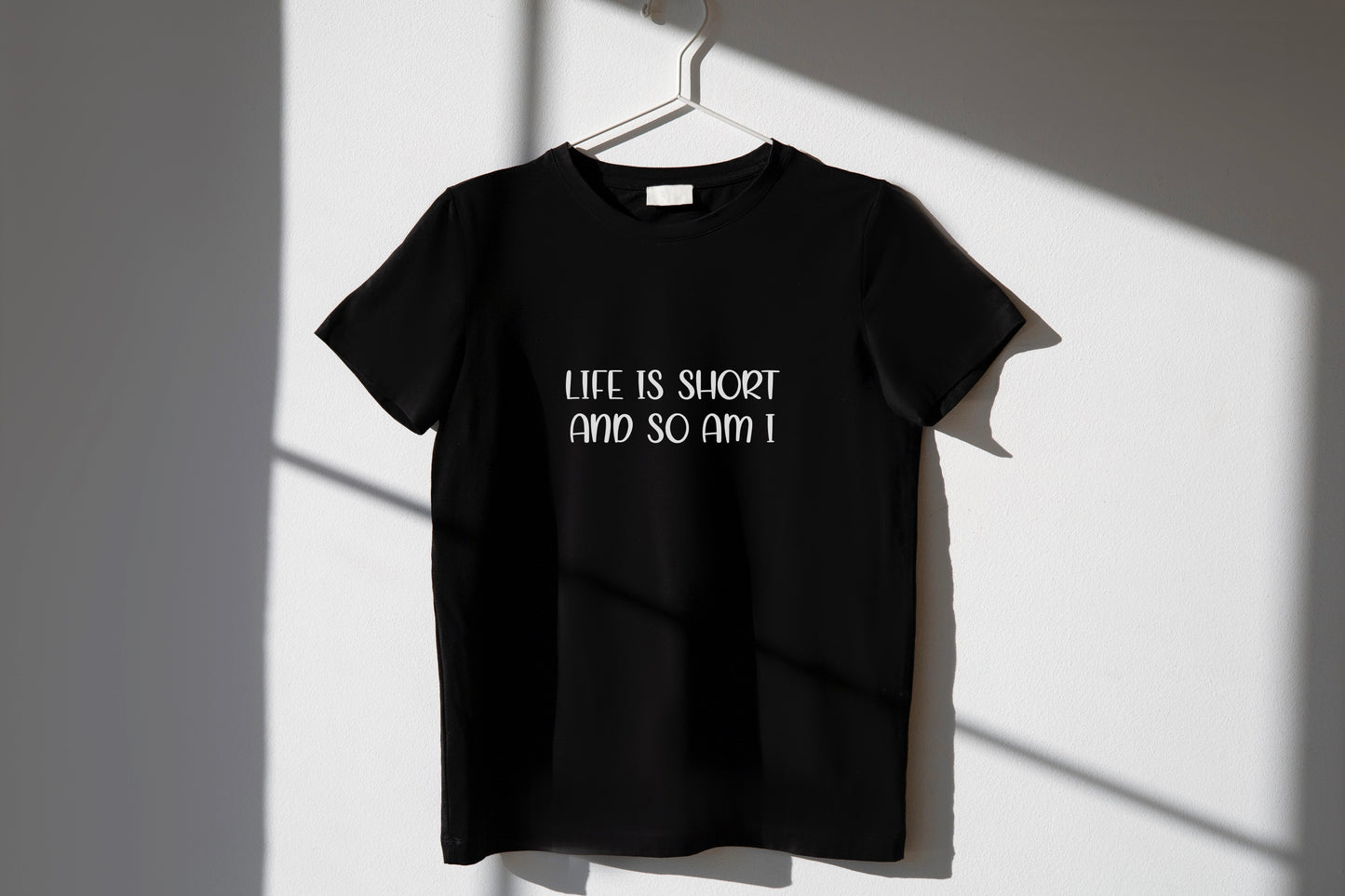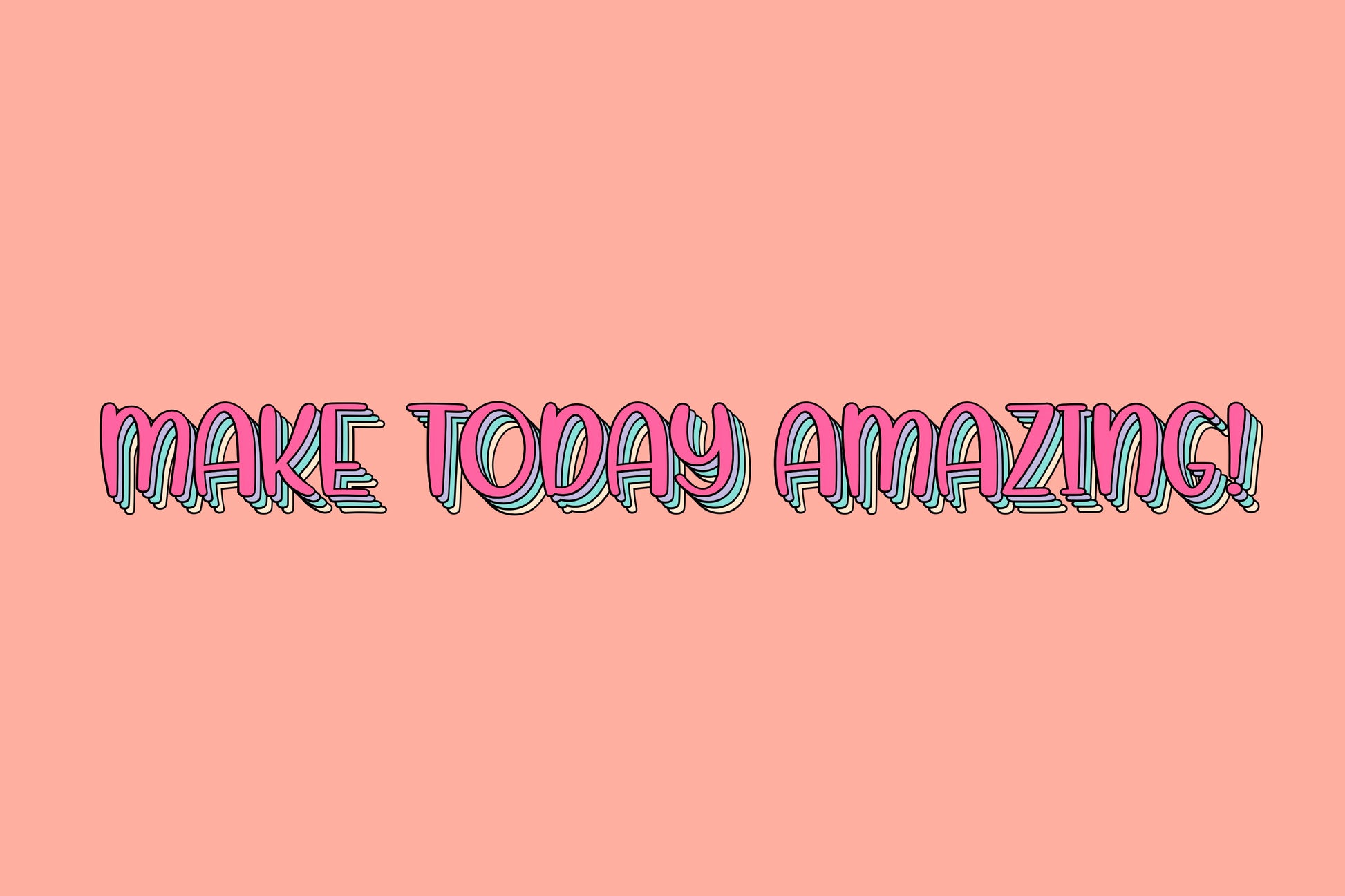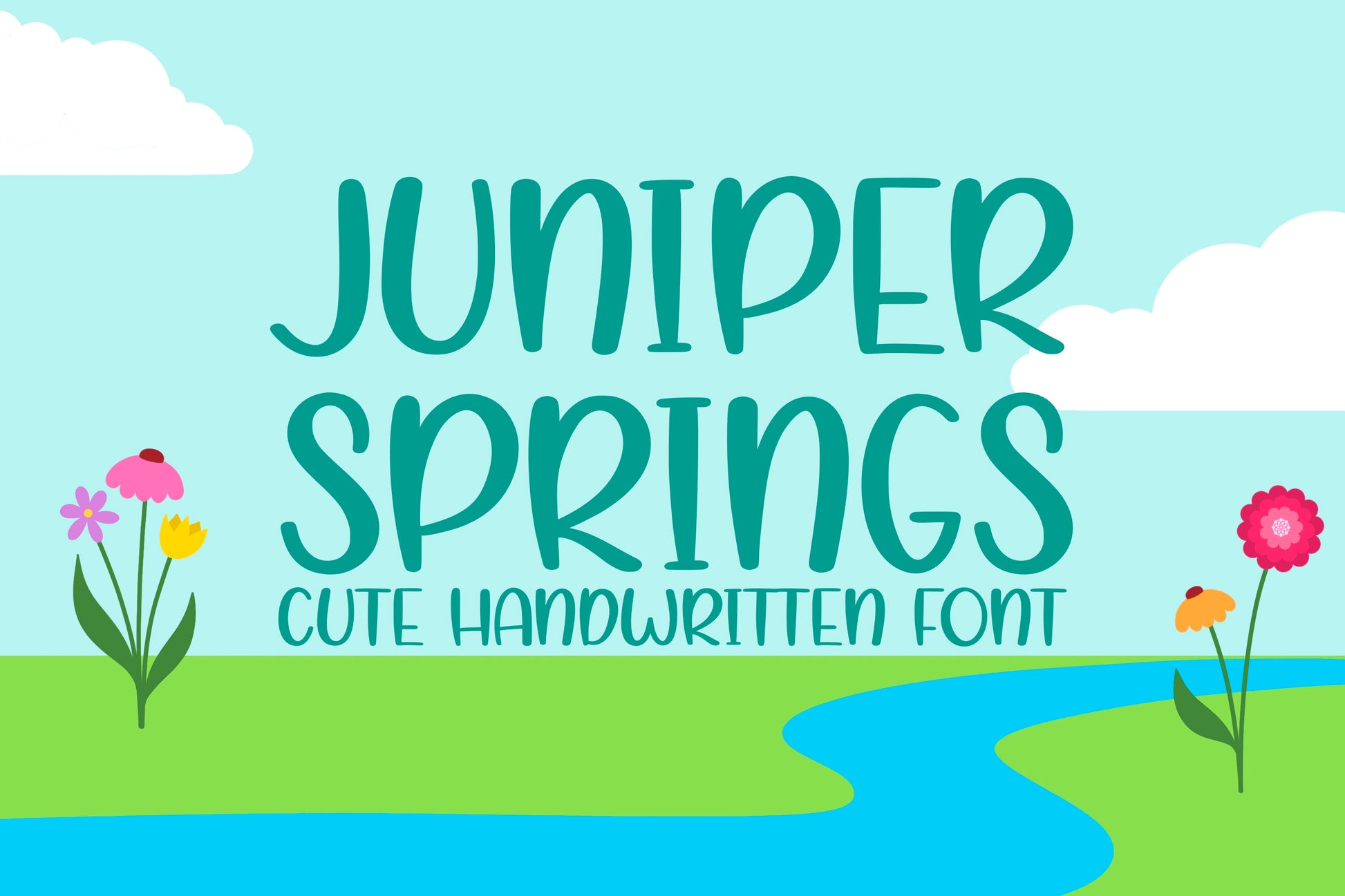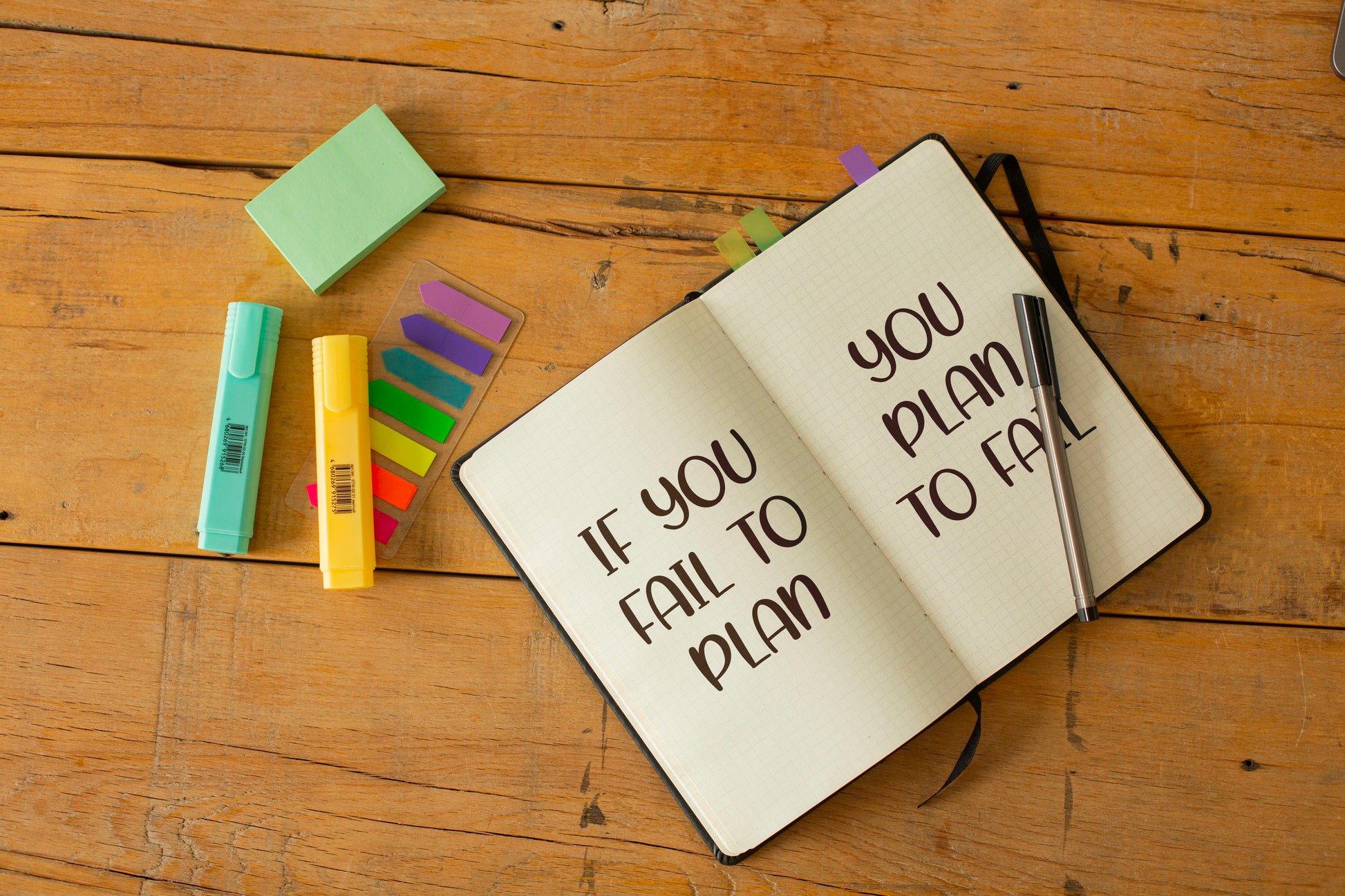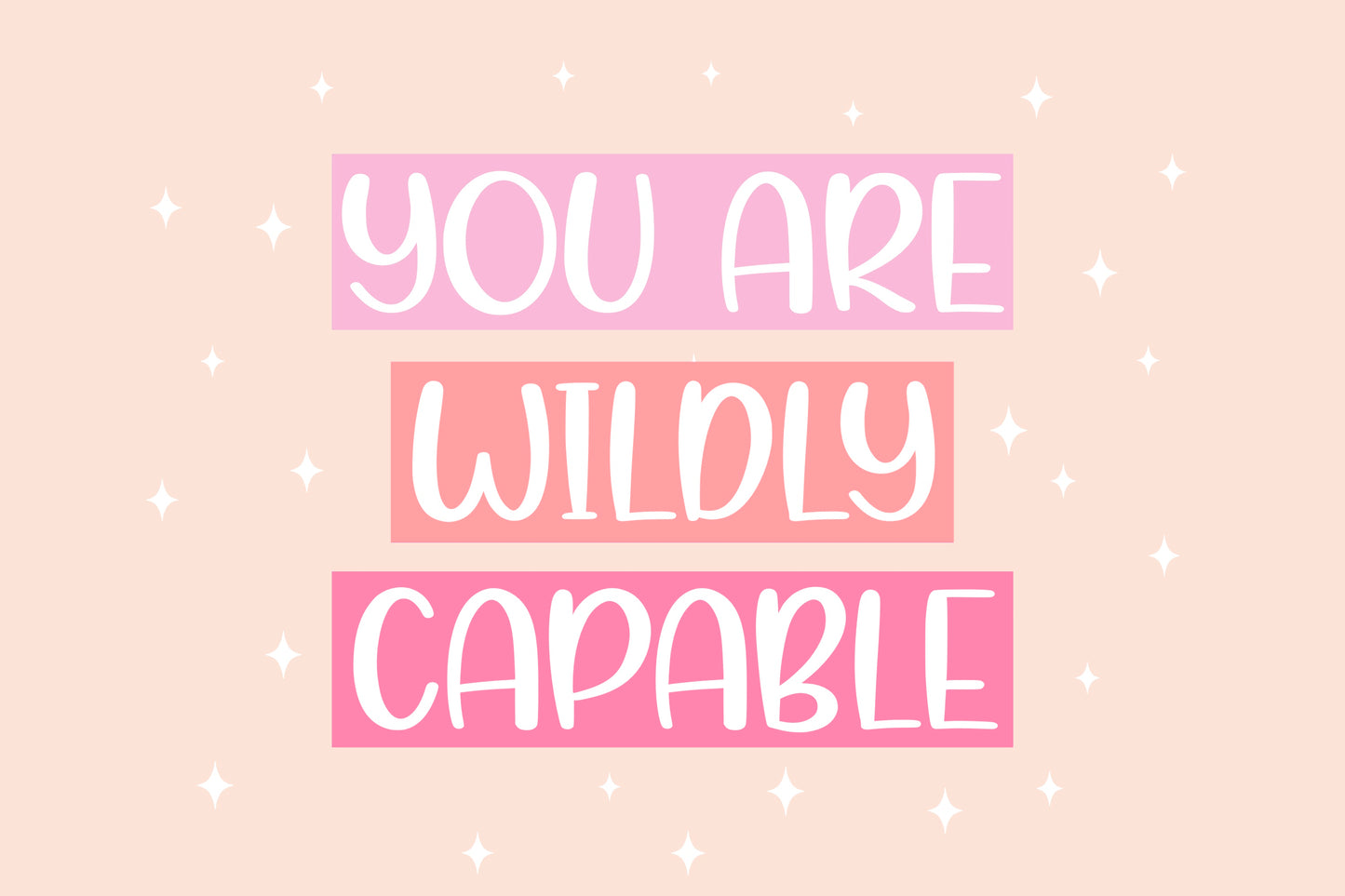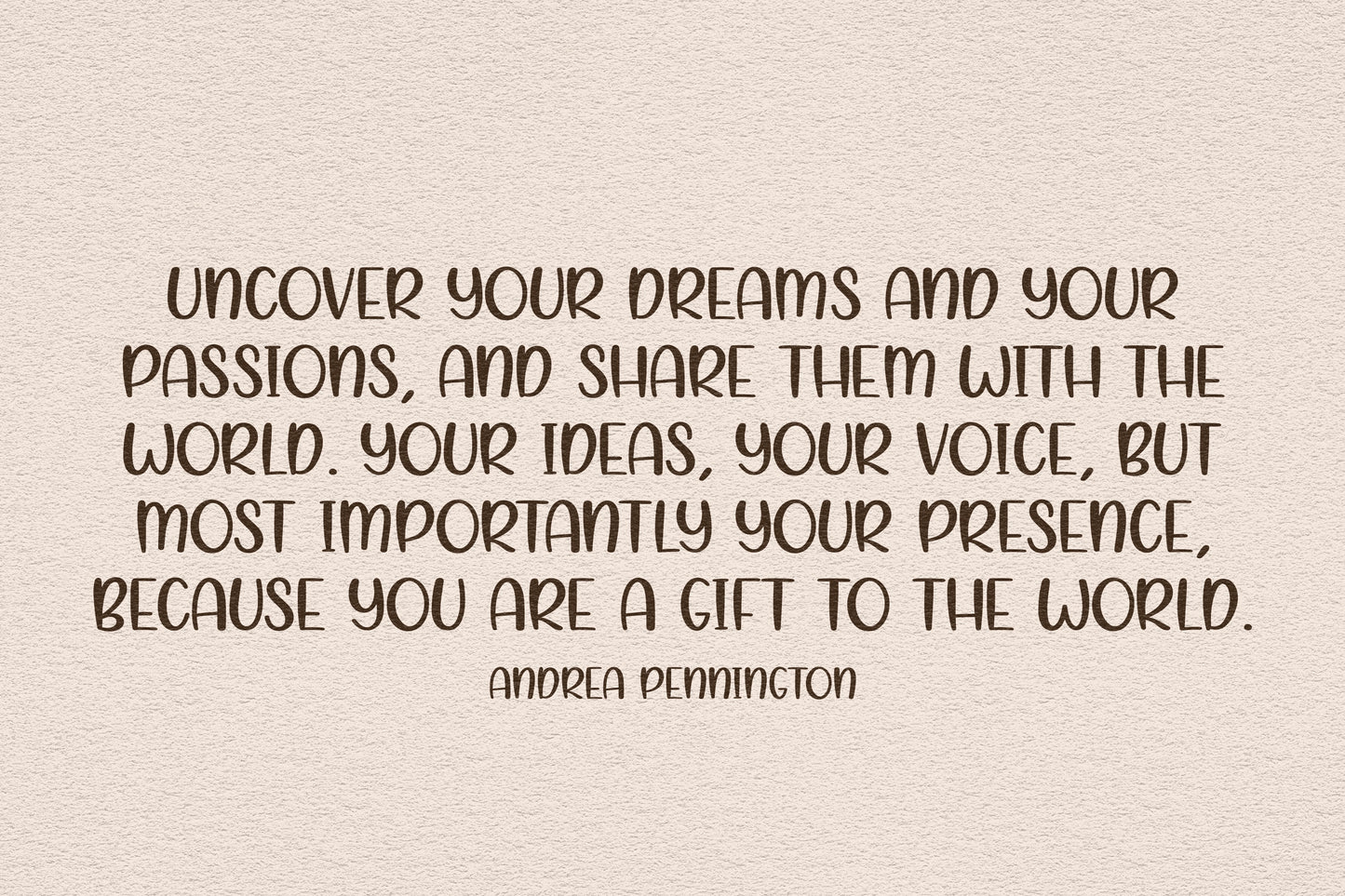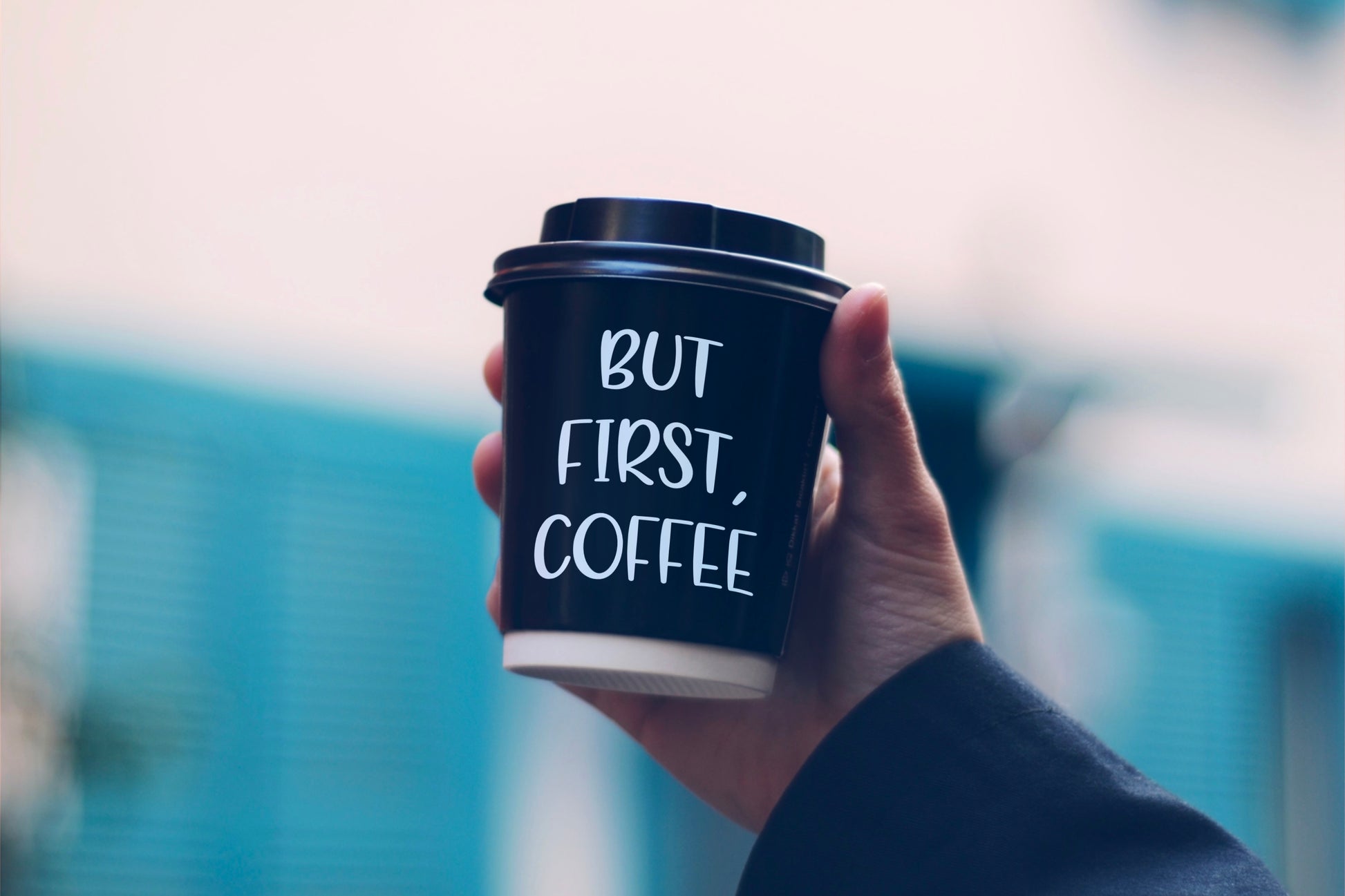
Juniper Springs Handwritten Sharpie Font
Introducing the cutest Juniper Springs handwritten/hand drawn font! This adorable all-caps brush font will add a fun, quirky, handmade touch to your design. It’s perfect for stickers, quote designs, invitations, T-shirts, posters, and so much more.